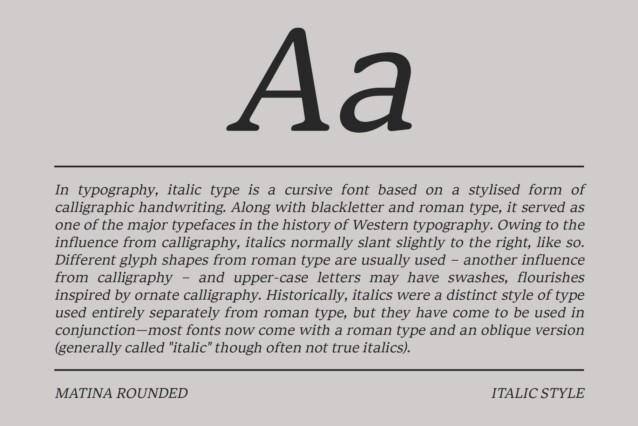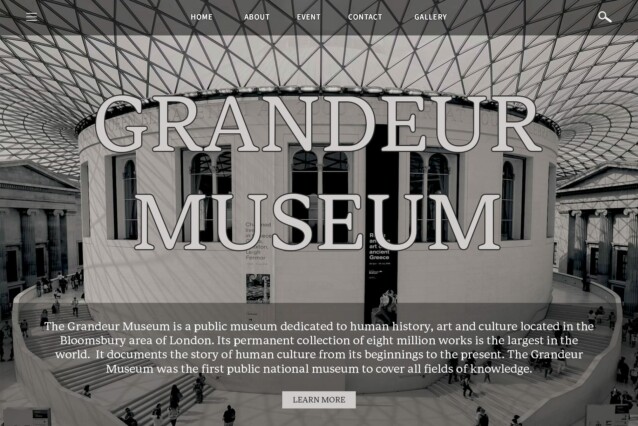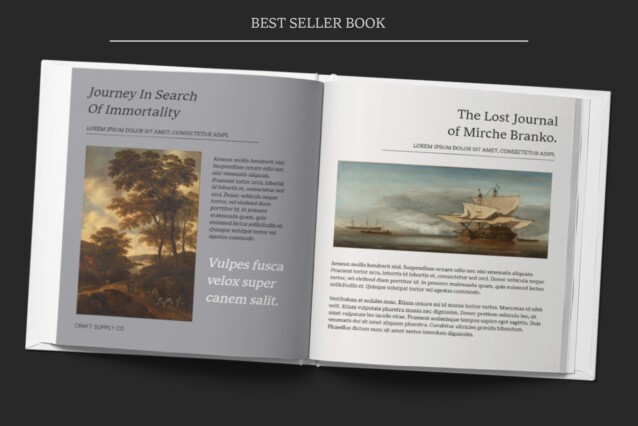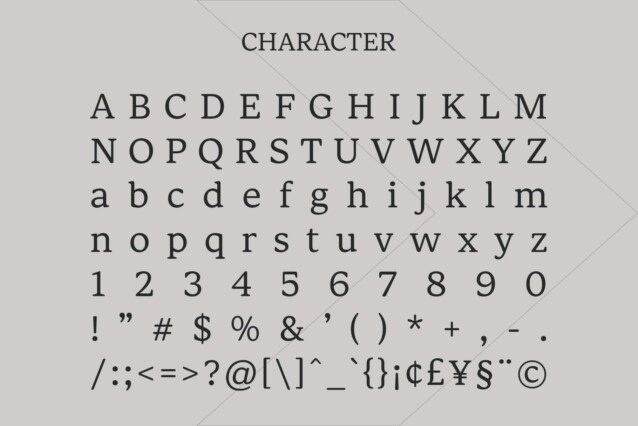
Matina Rounded Font
Matina Rounded Font is a serif font style with subtle contrast, ensuring comfortable reading experiences for body text. Its gentle contrast allows for smooth flow and enhanced legibility.
Soft Serif Aesthetics With soft, rounded serifs, This font exudes warmth and approachability. The gentle curves of its letterforms create a friendly and inviting appearance, making it suitable for prolonged reading sessions.